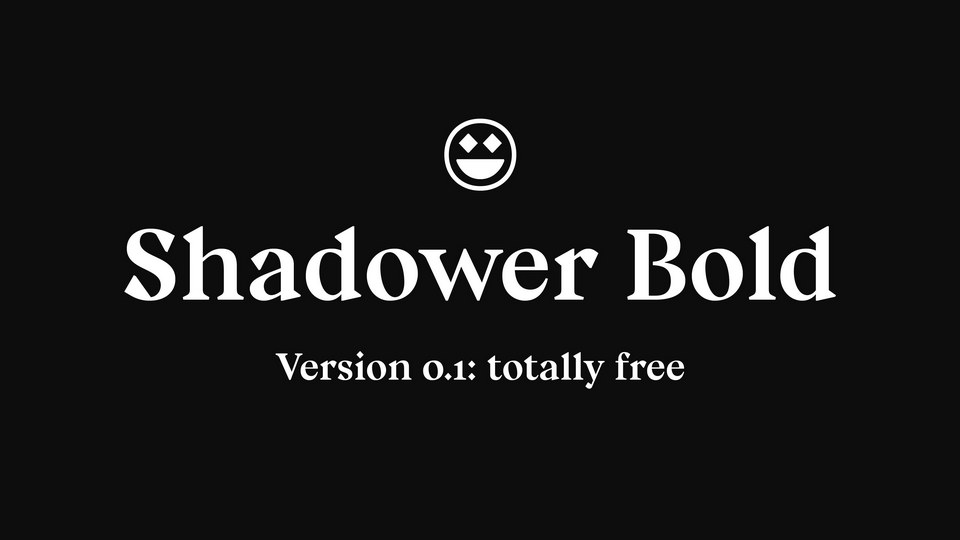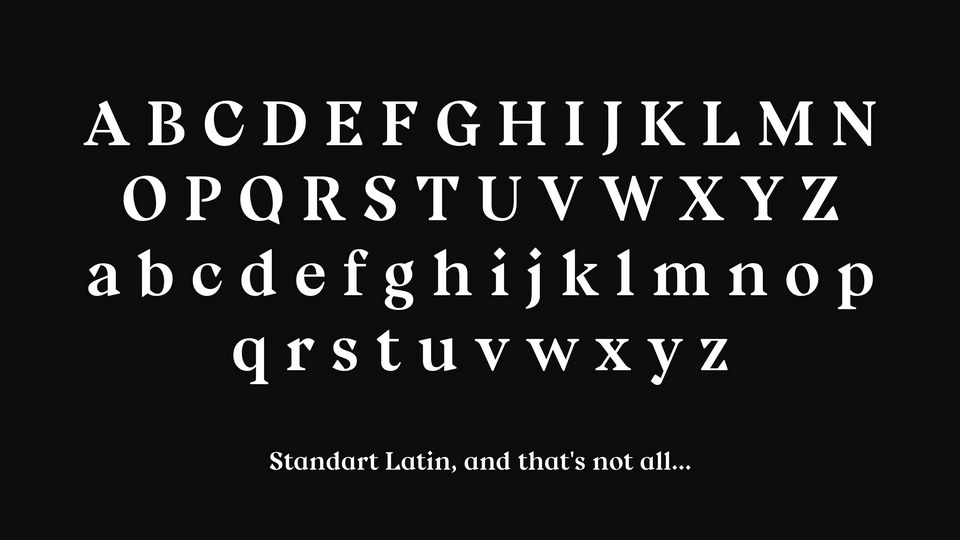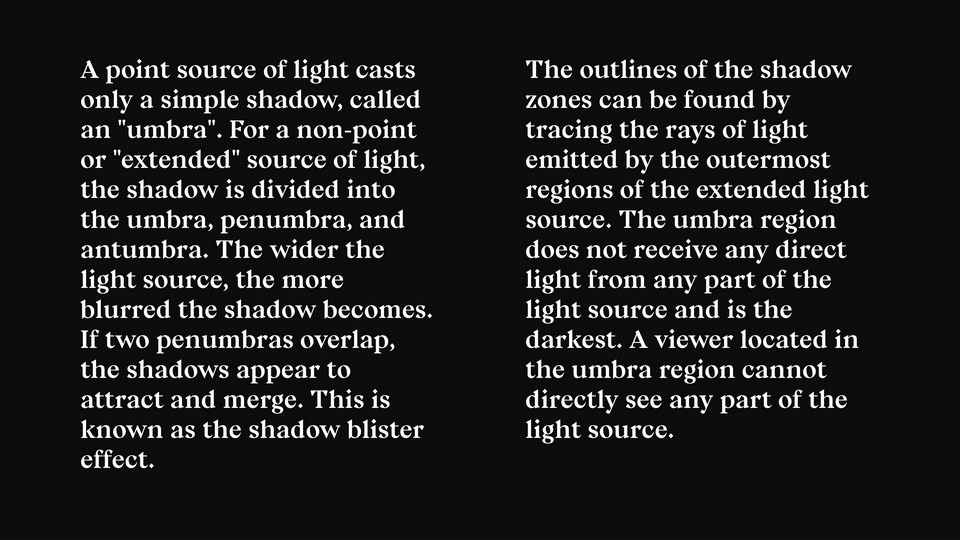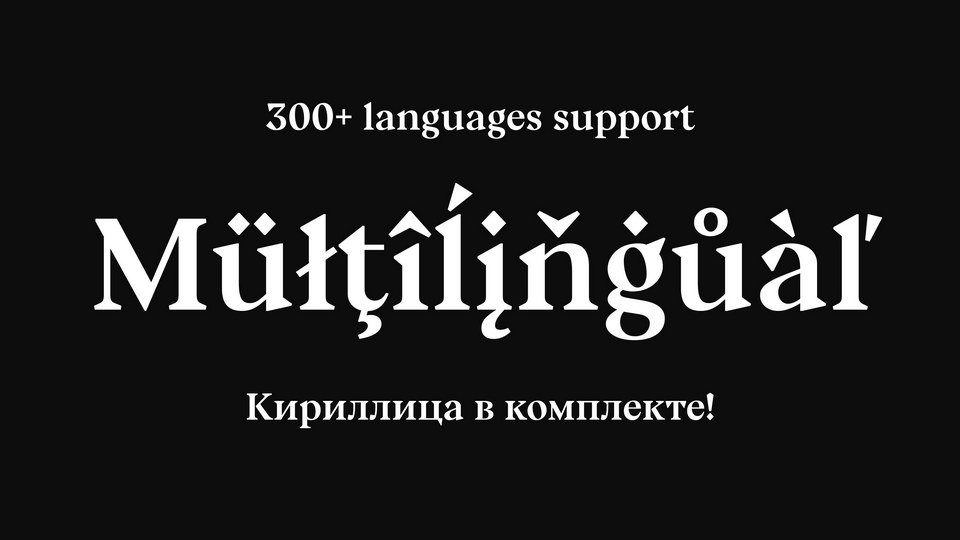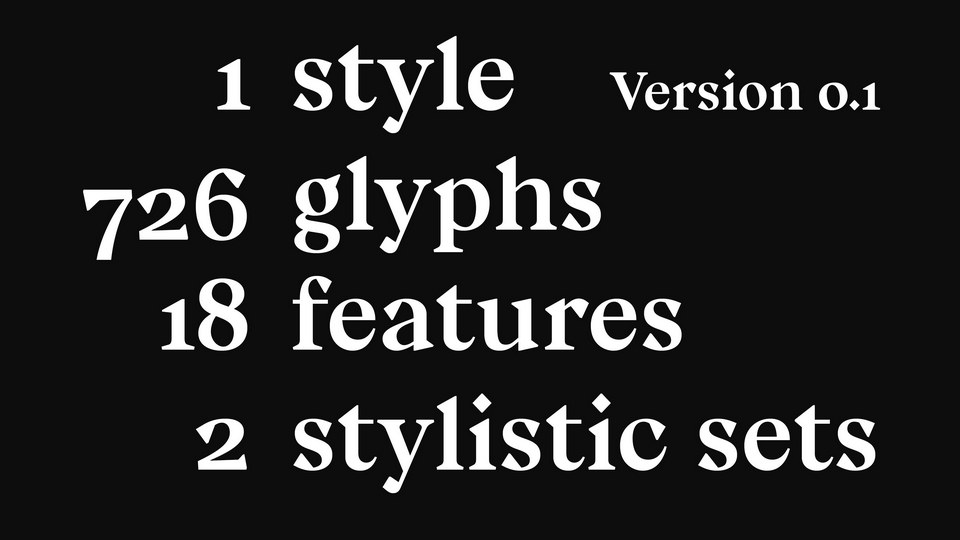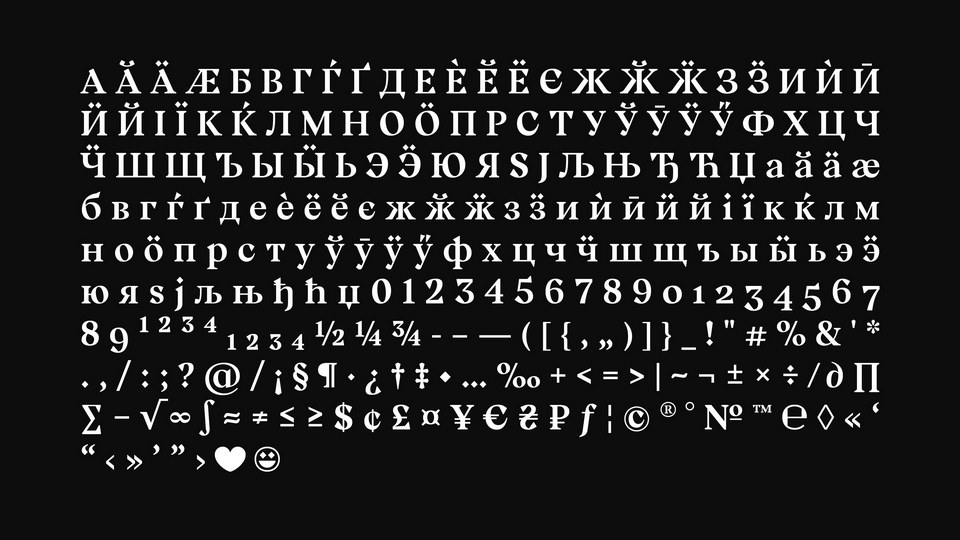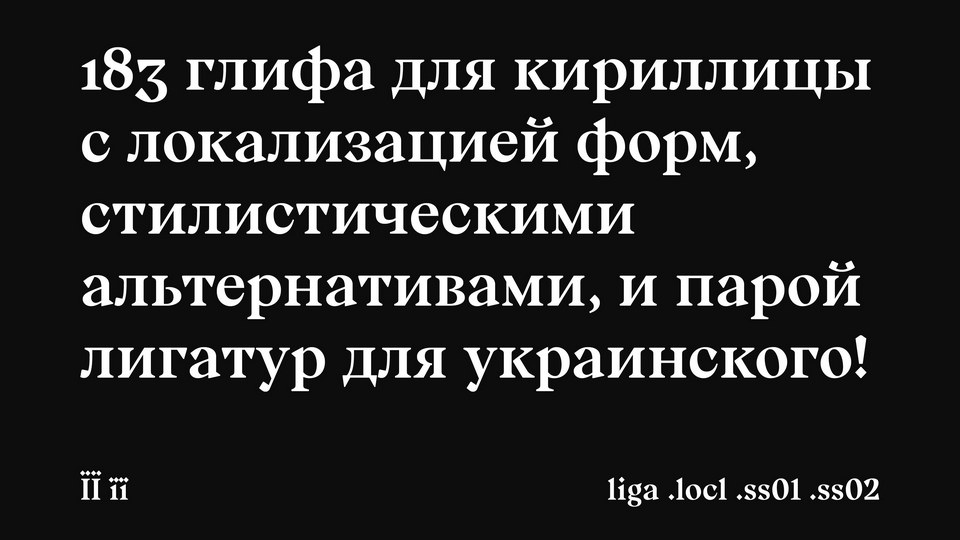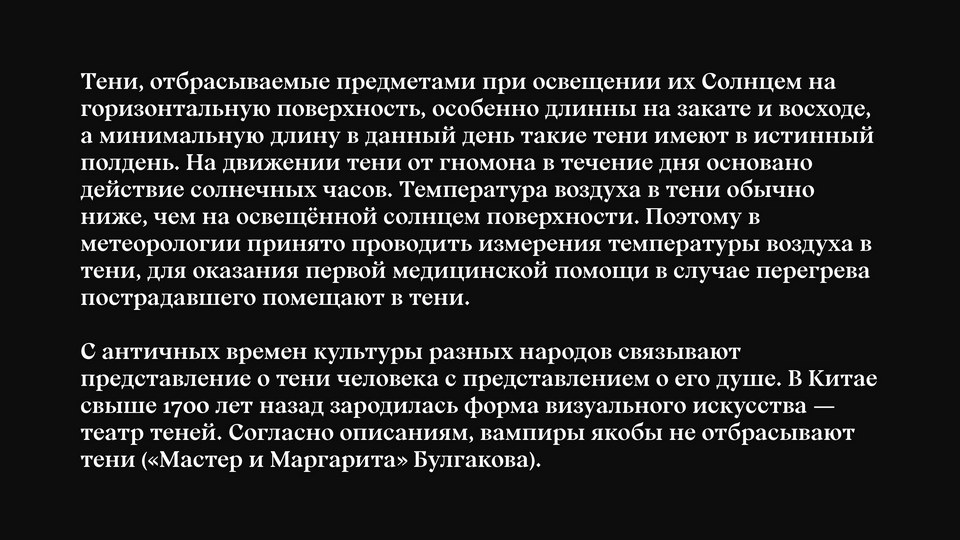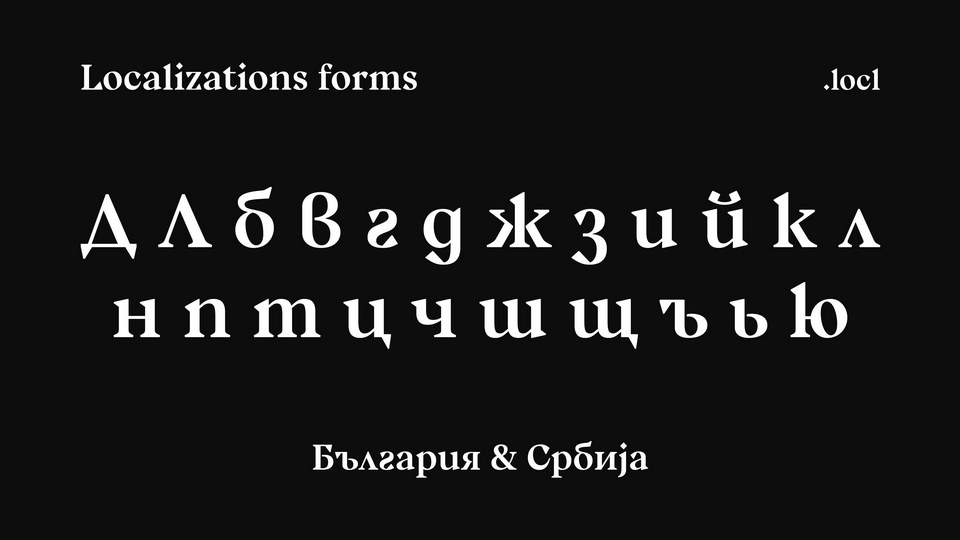
Shadower is a modern display serif font with triangular serifs, diamond dots and dynamic forms. Include Latin and Cyrillic scripts.
Shadower will demand attention, making it perfect for titling, headlines, logotype, and branding projects.